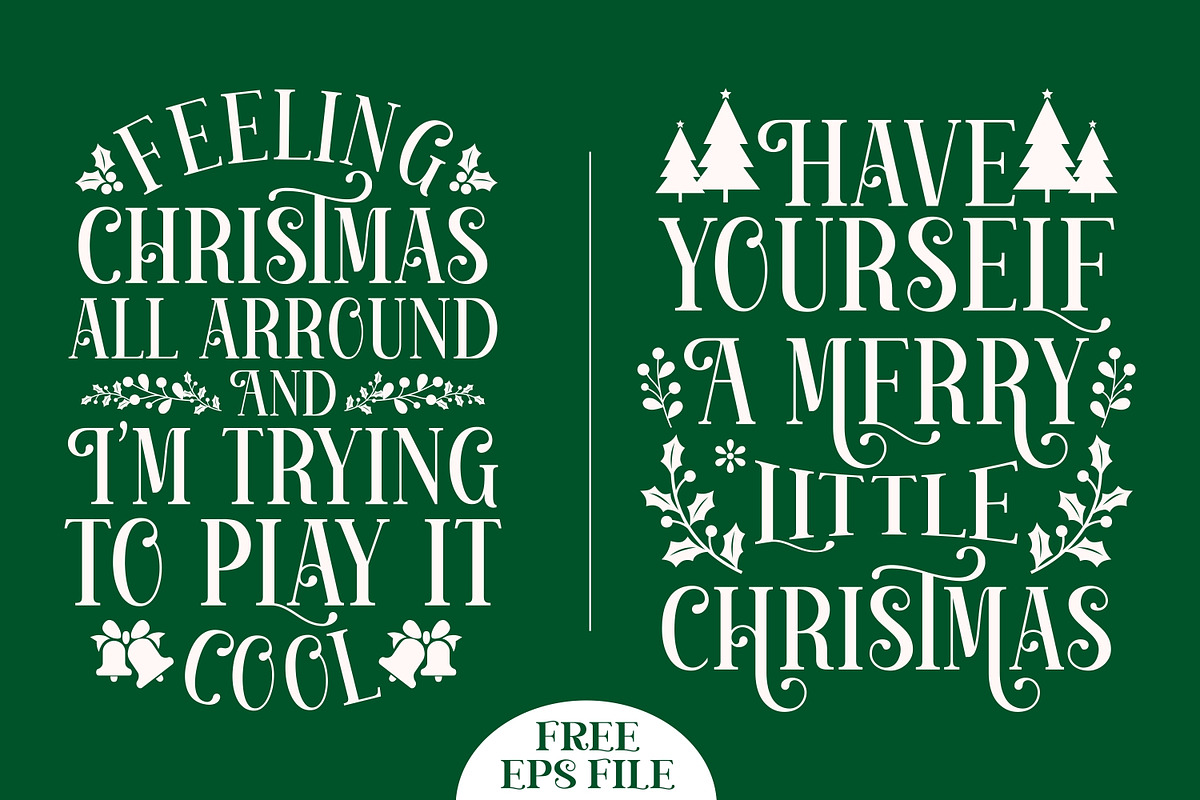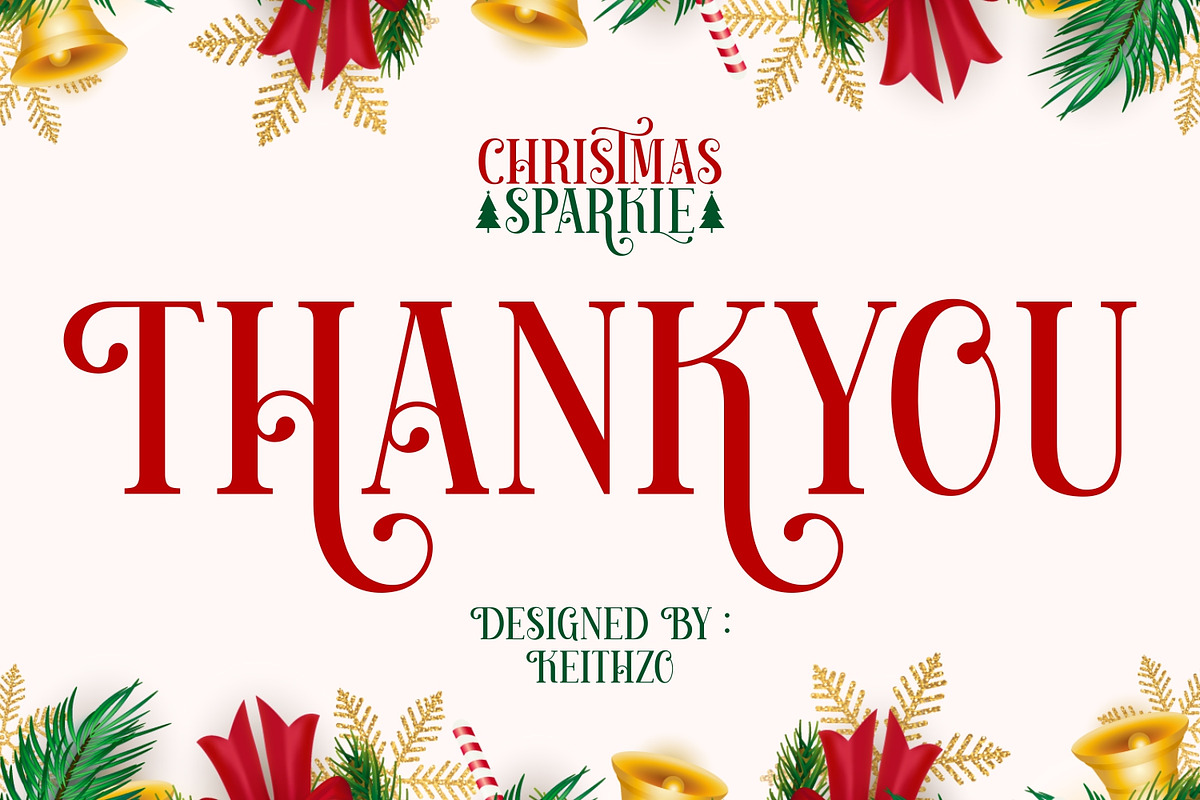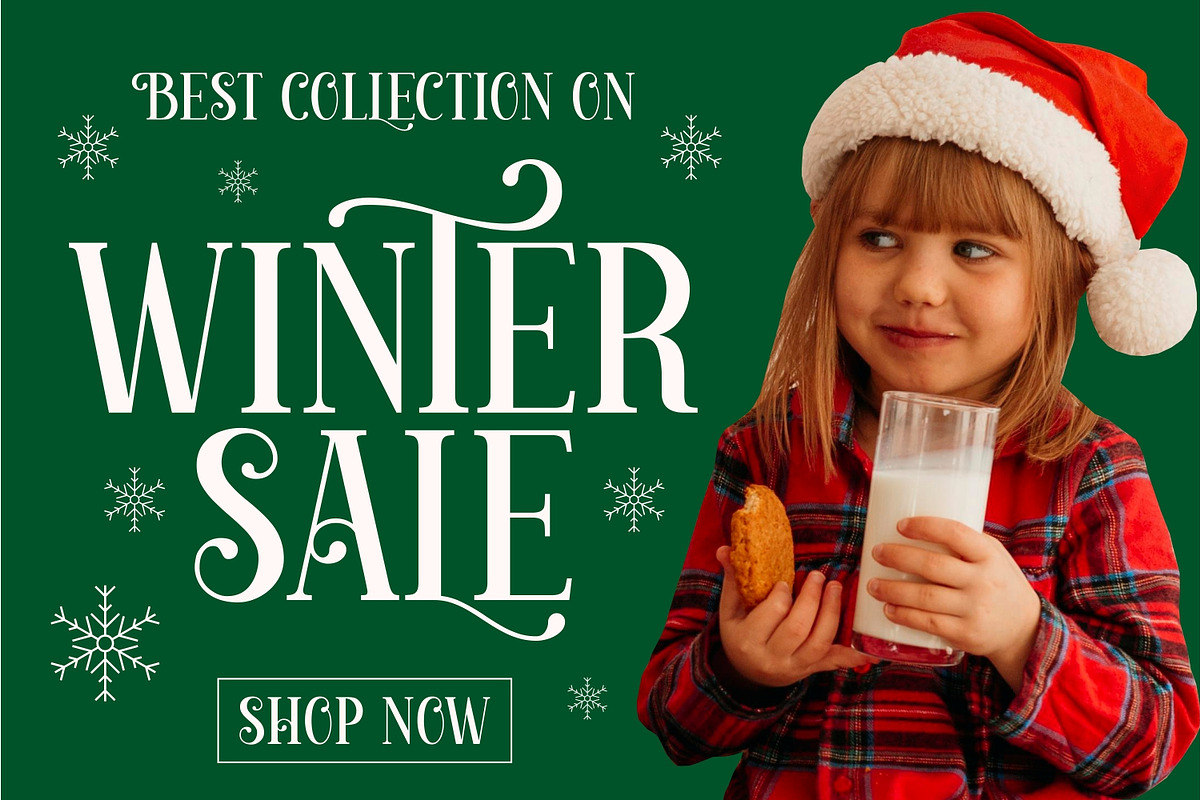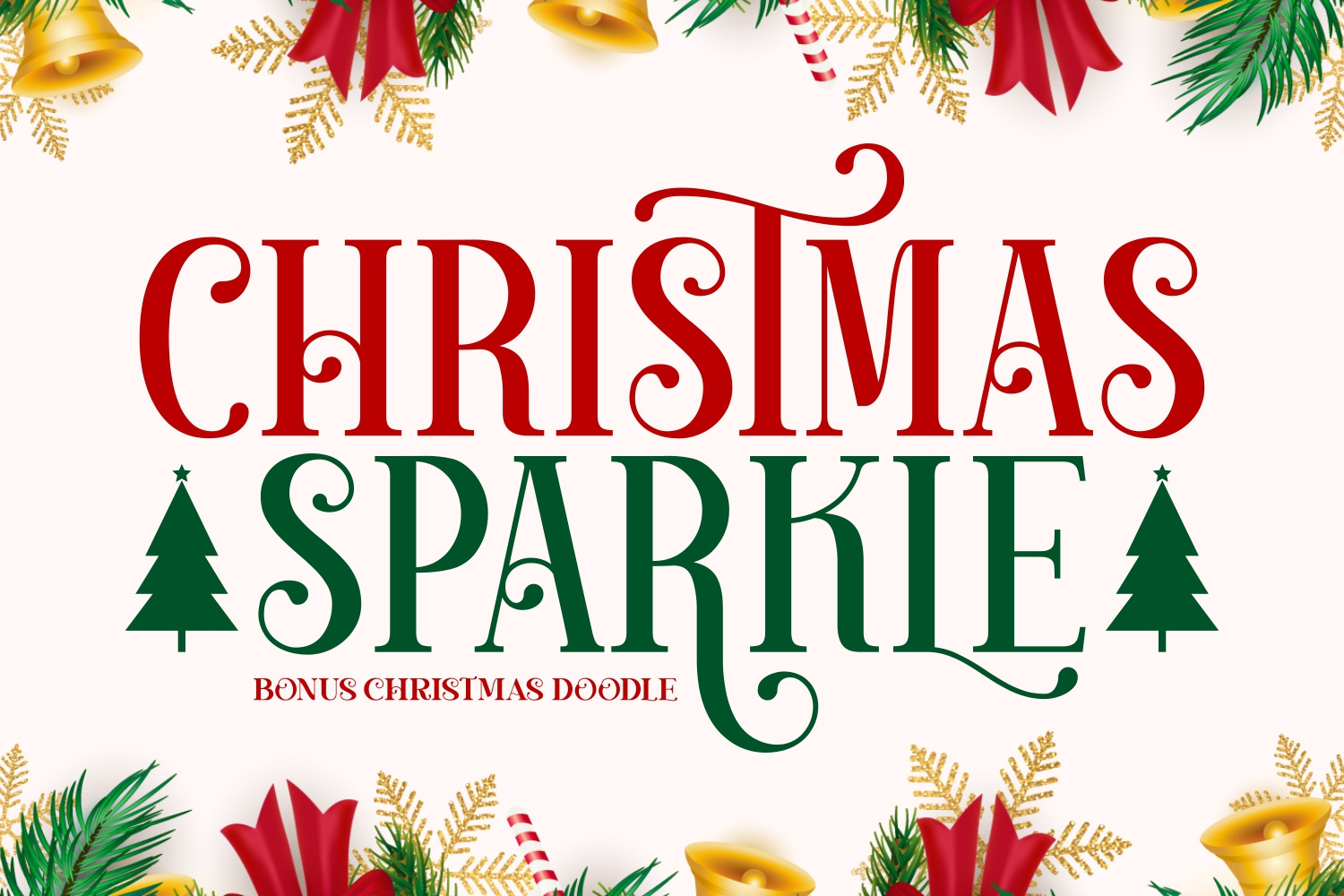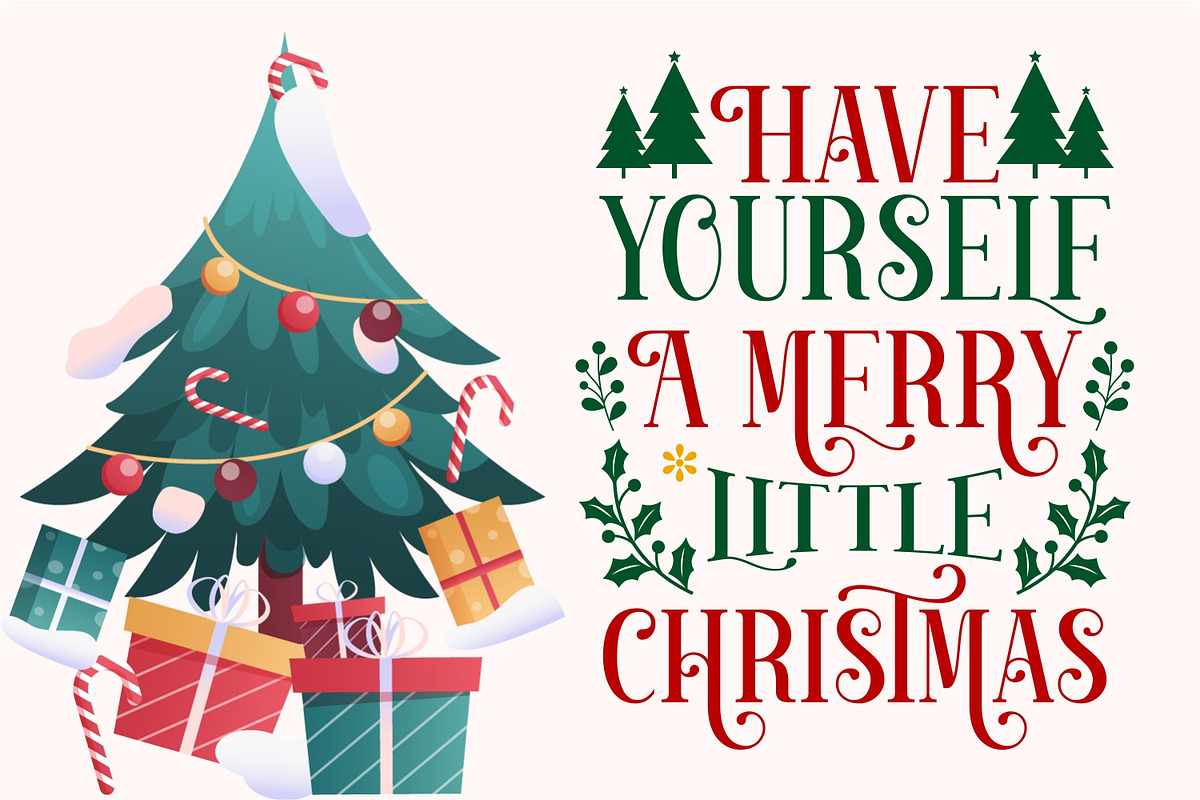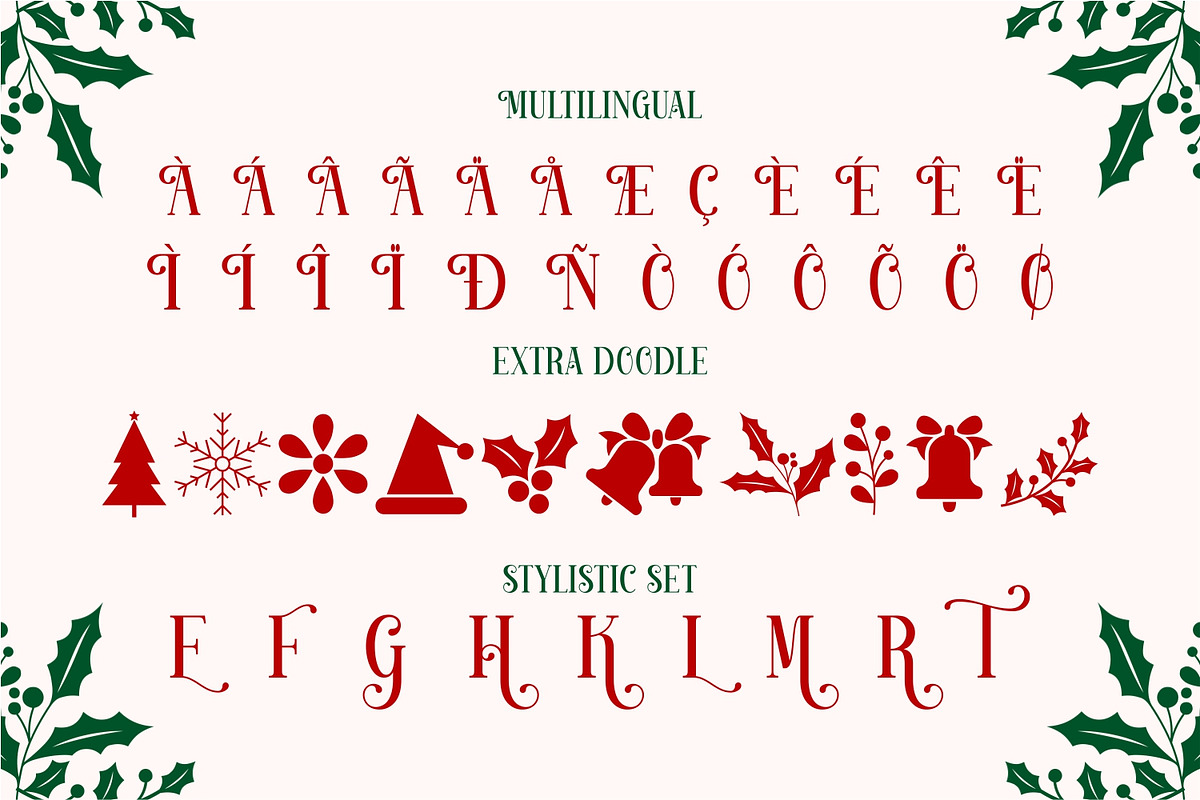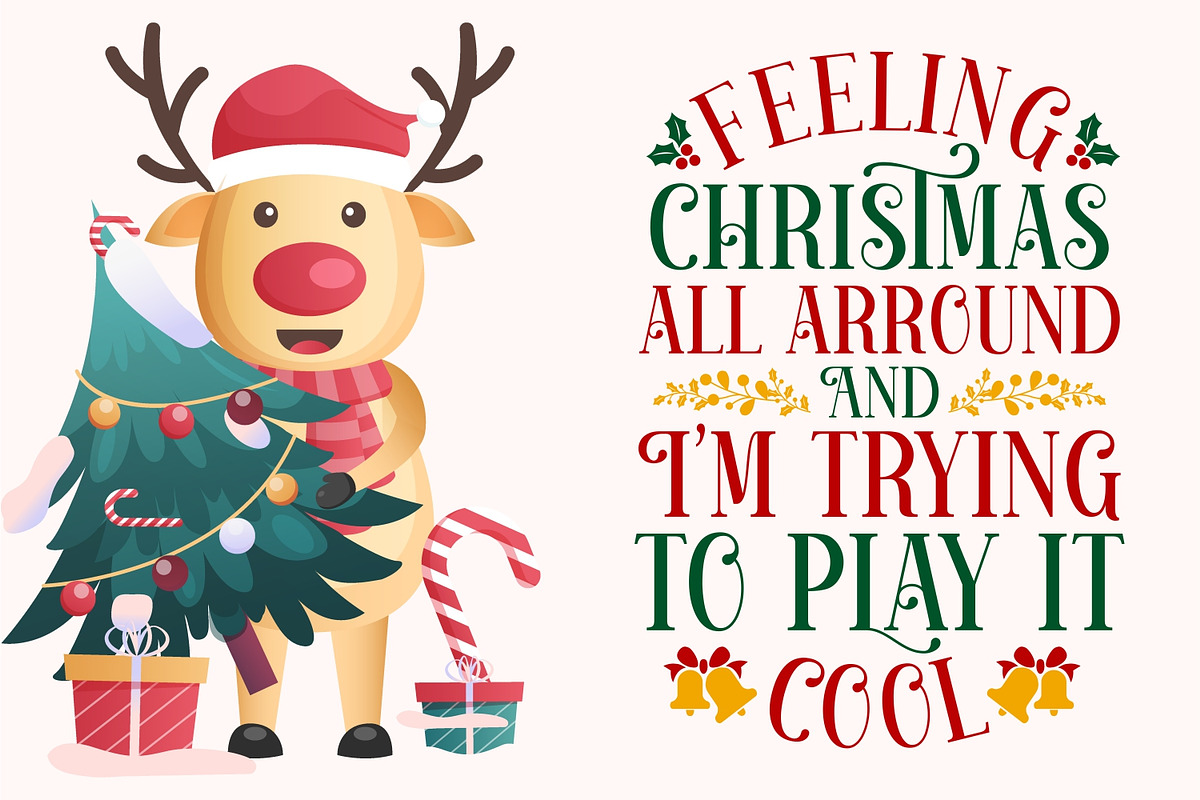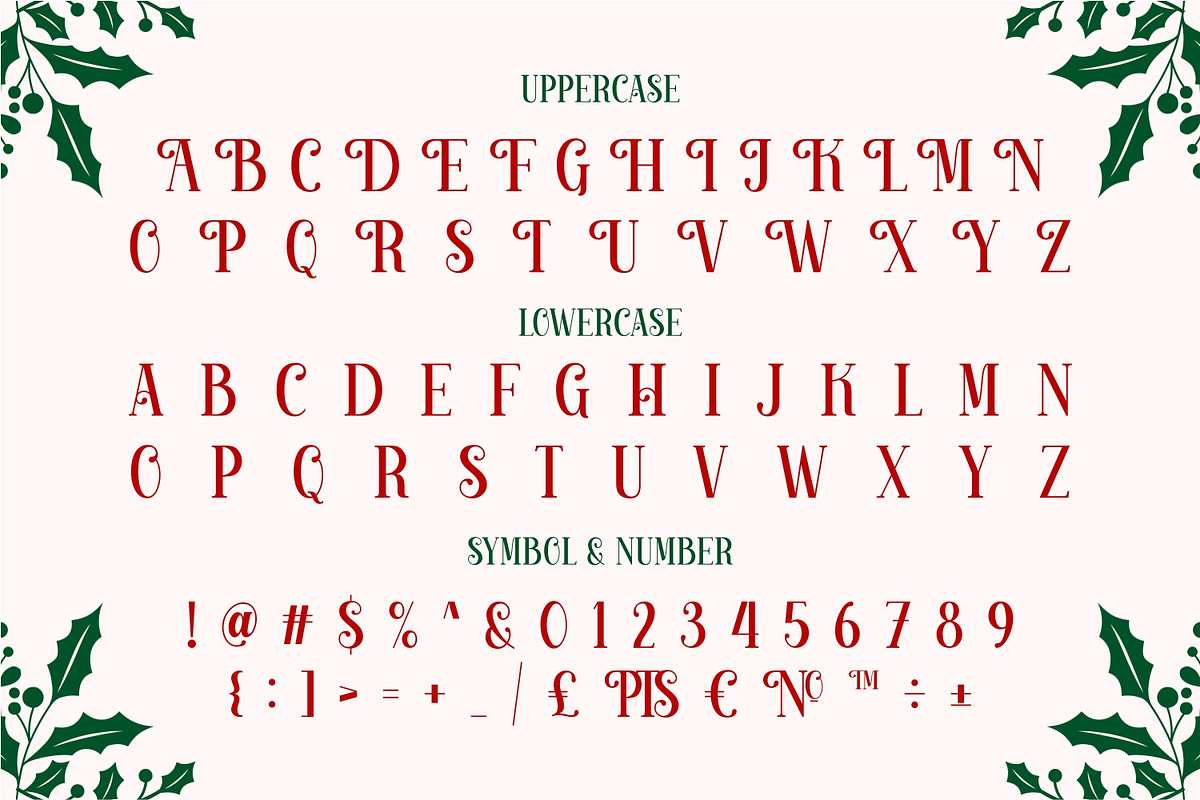
Christmas Sparkle - Christmas Font
Christmas Sparkle is a festive and stylish serif font. Add it confidently to your projects, and you will love the results. This font is PUA encoded which means you can access all of the glyphs and swashes with ease!